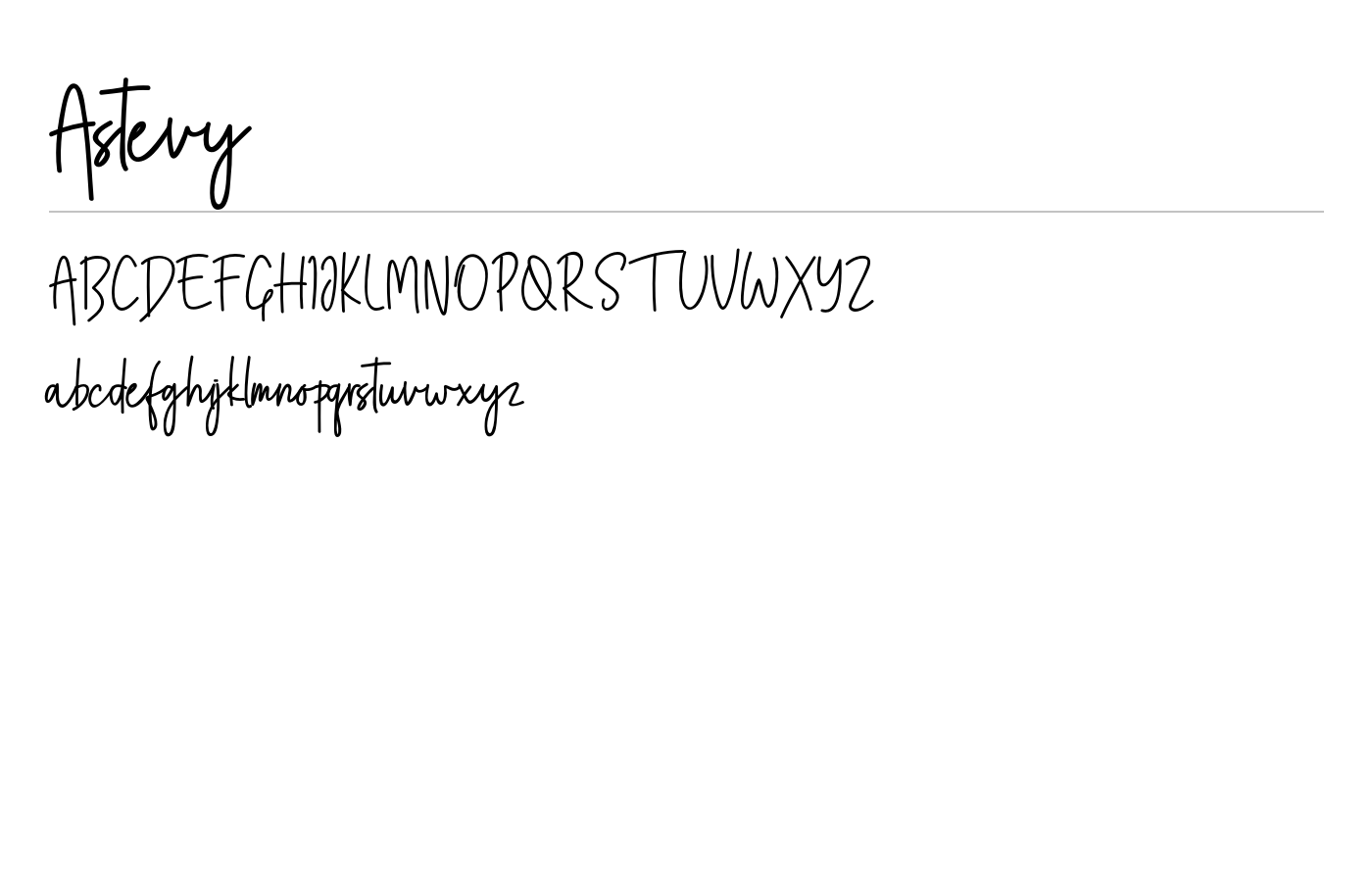
Astevy is a playful and modern handwritten font featuring tall, narrow letterforms with a casual, flowing style. Its light weight and varied stroke widths give it a friendly, approachable feel, making it perfect for personal branding, creative projects, and informal invitations. This font works best in headlines or short texts where a personal, expressive touch is desired.
Astevy Font